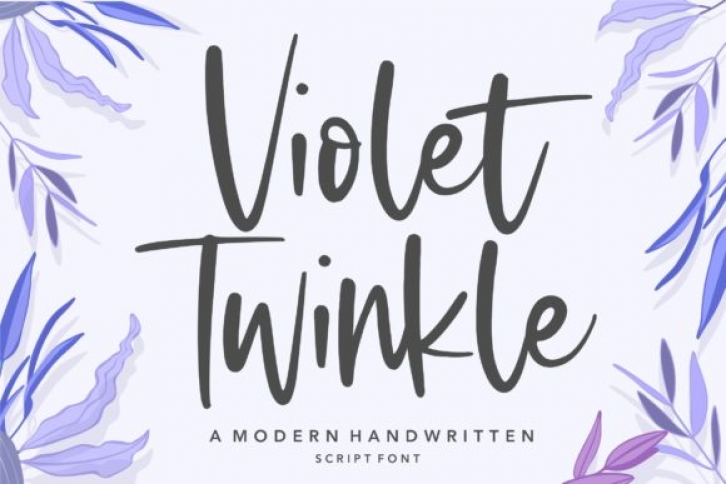
Violet Twinkle is a flowing handwritten font, described by an elegant touch, perfect for your favorite projects. Fall in love with its incredibly distinct and timeless style and use it to create spectacular designs!